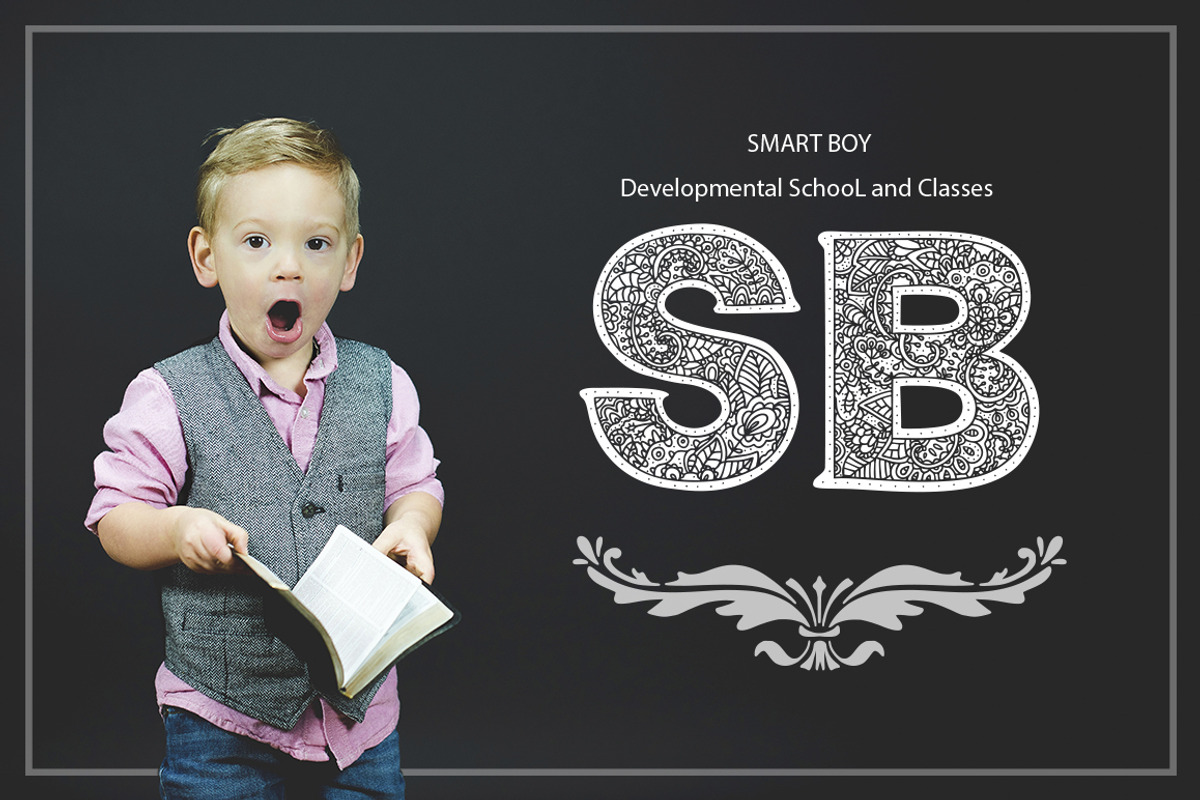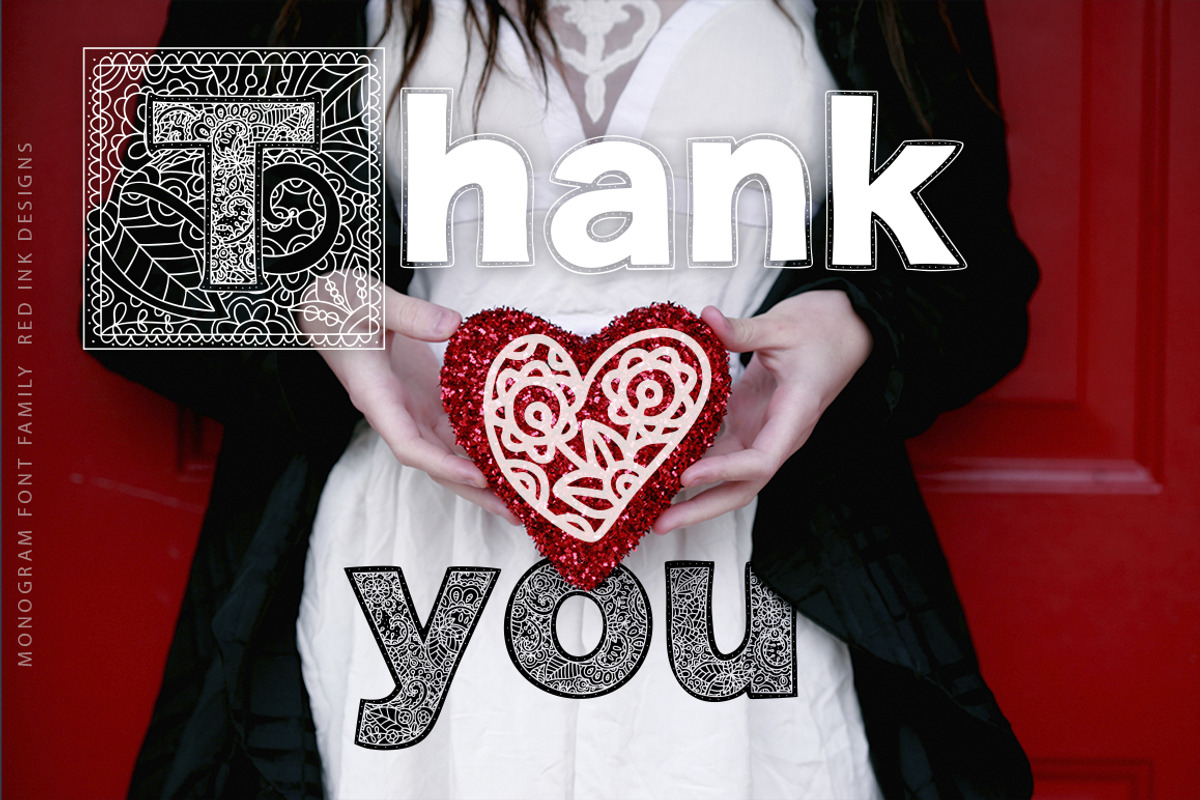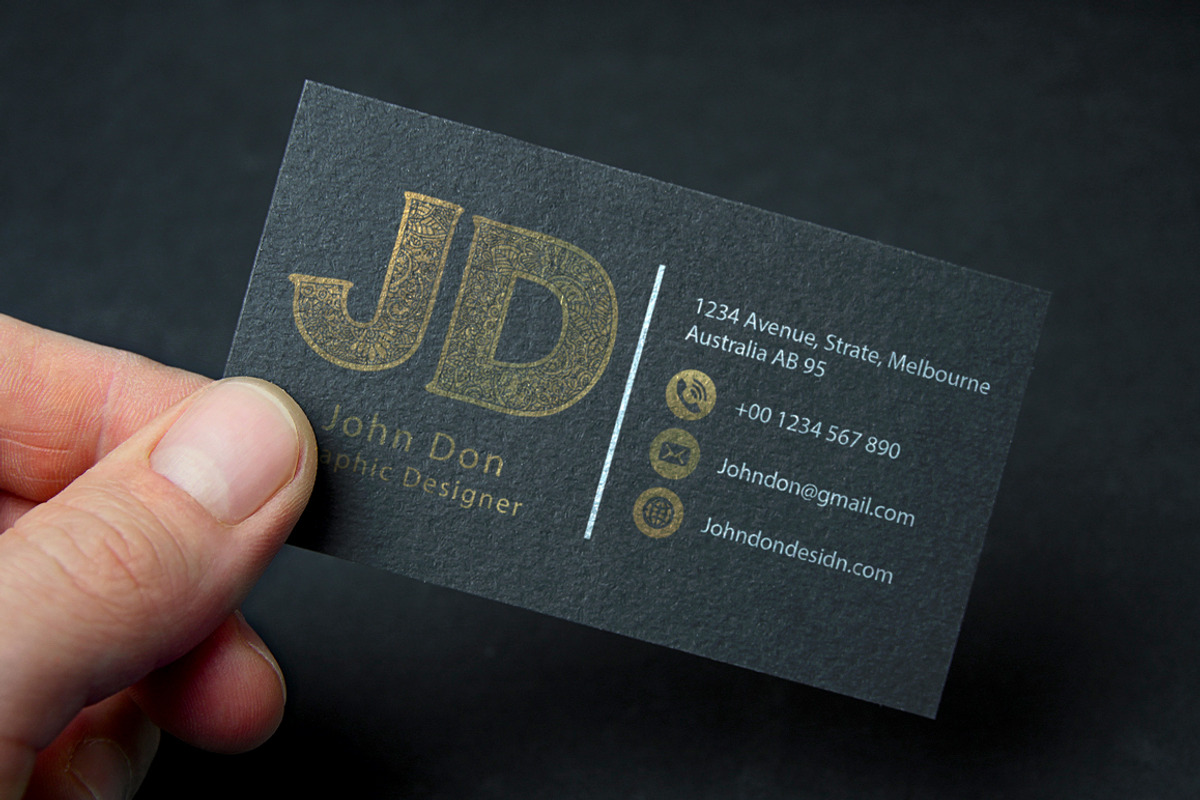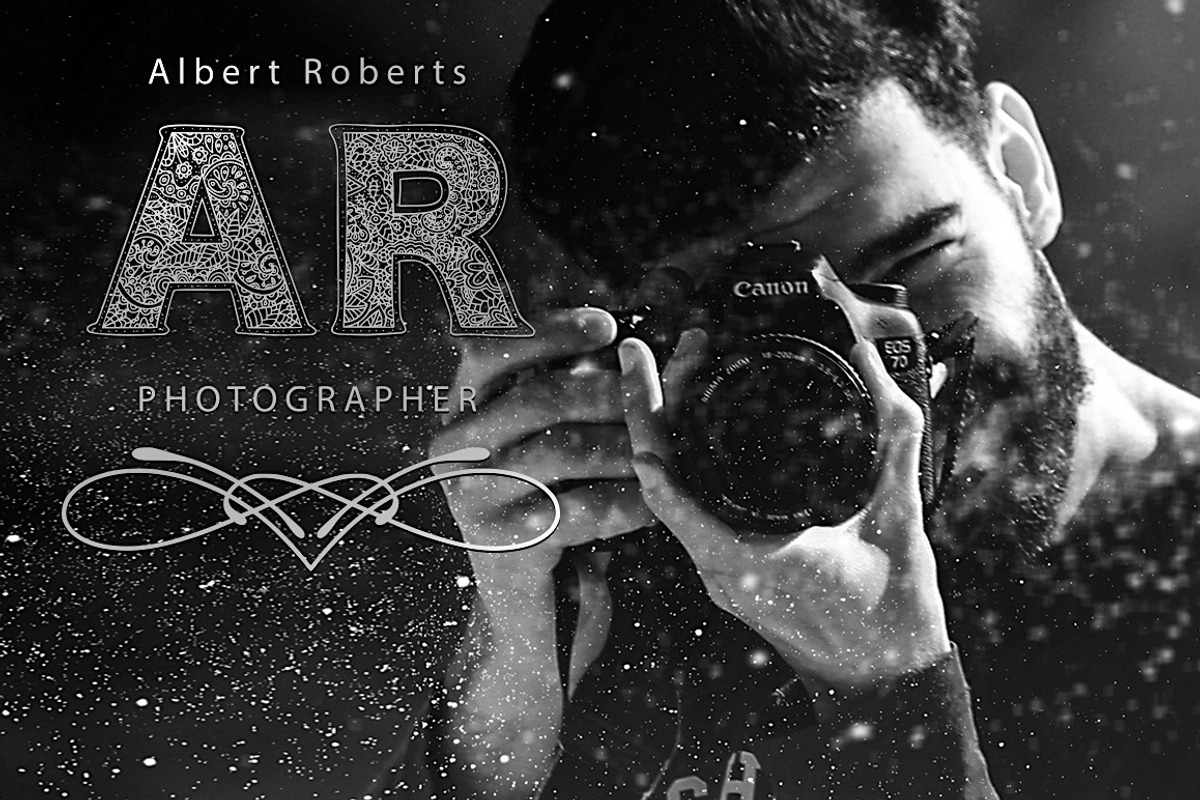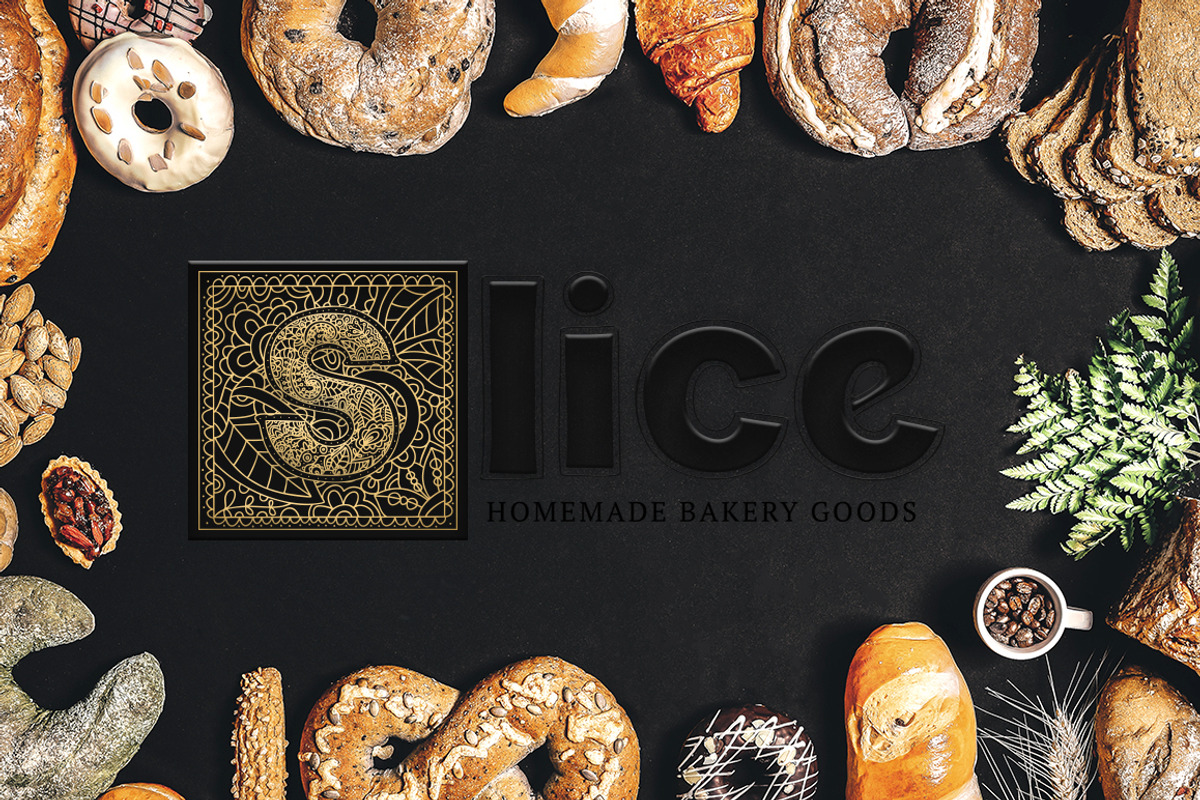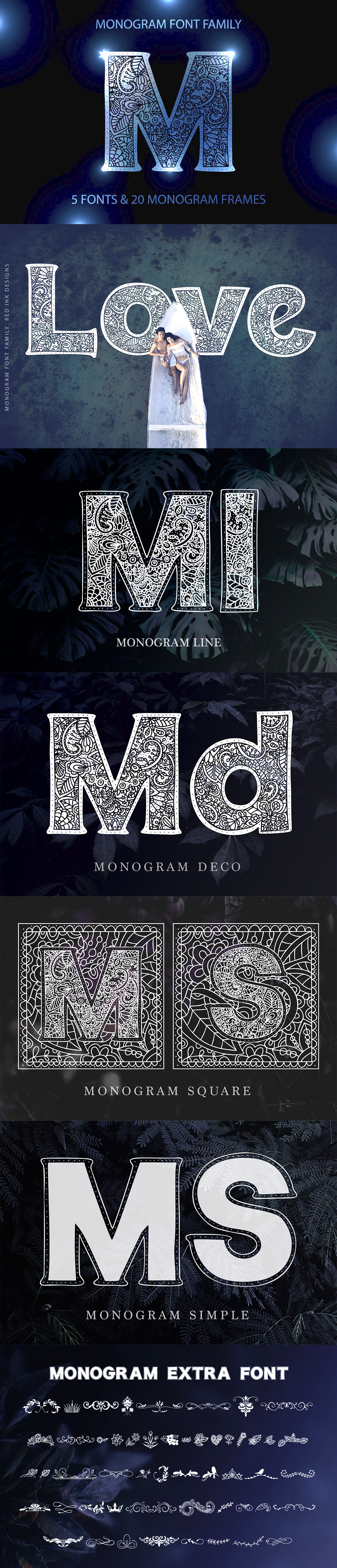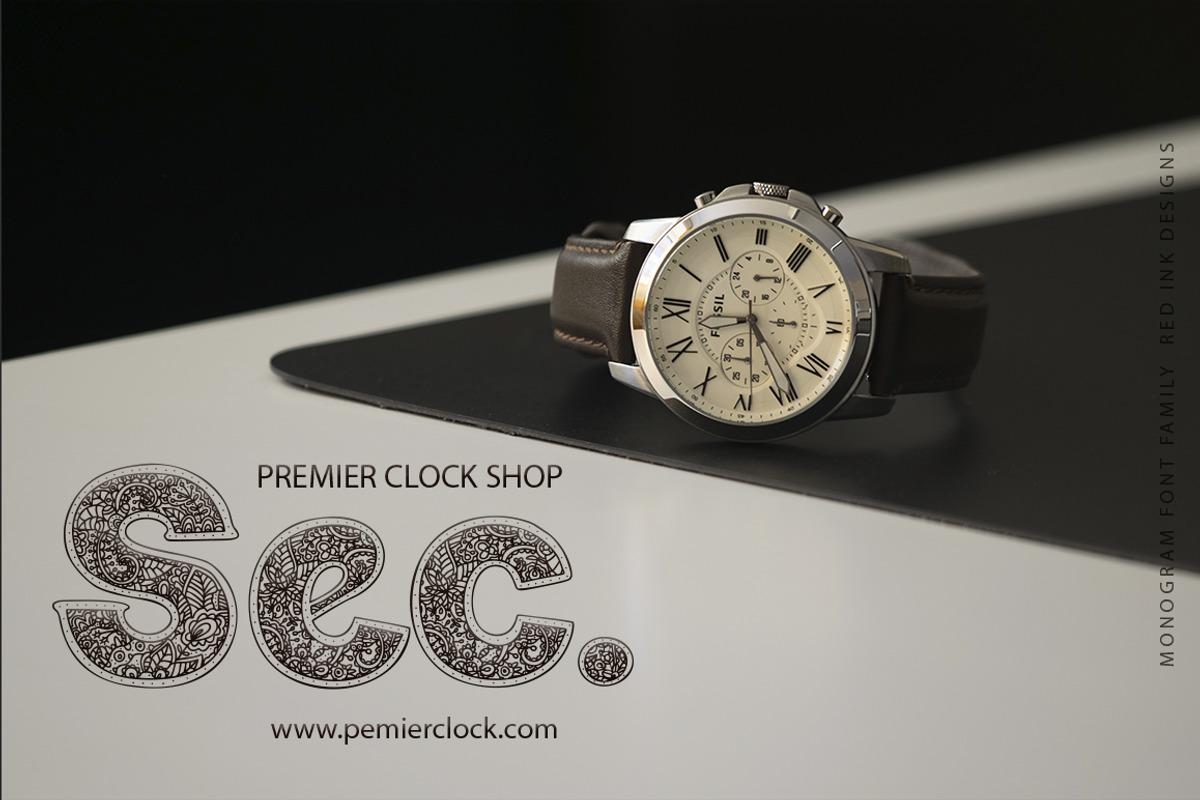
Monogram · 5 fonts · 20 frames
Meet my amazing new product – Monogram font family, which includes 5 elegant fonts, where each letter is a beautiful detailed art piece. You will also receive and unique 20 vintage monogram frames, which will help tie everything together into an elegant, cohesive design!
Goodlooking and creative, together or apart all fonts were created for beautiful typographic projects, amazing designs, for logo, branding materials, cards, posters, mugs, photography overlays and so much more!
Monogram font letters look great in large sizes, where you can see the detailed ornament and note a big work done with each glyph. Font includes multilingual support. Western European, Central European and South Eastern European languages are included. Please type characters in text box below to check any characters you need.
Monogram line font (Otf/Ttf/Woff). Very decorative gentle ornate font with multilingual support, punctuation and numbers.
Monogram deco font (Otf/Ttf/Woff). Amazing ornate detailed font with multilingual support punctuation and numbers.
Monogram simple font. Simple monogram font with little decorations and multilingual support punctuation and numbers.
Monogram square font. Uppercase font with ready monogram letters in decorative squares.
Monogram extra font. Extra font with detailed 52 decorative vintage elements.